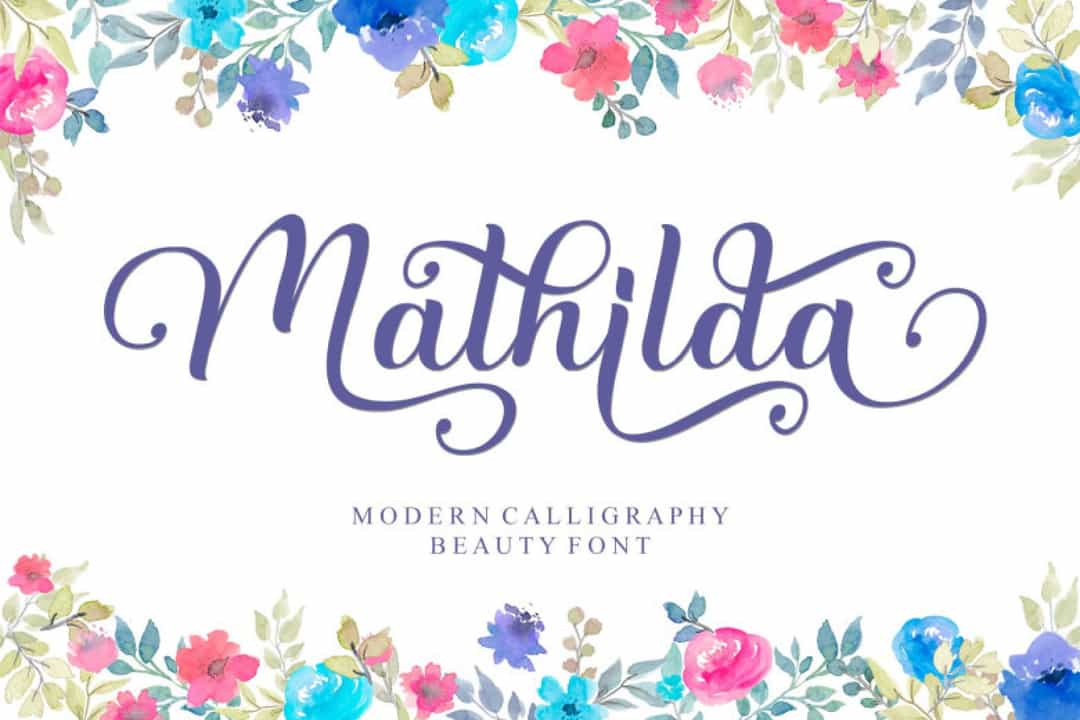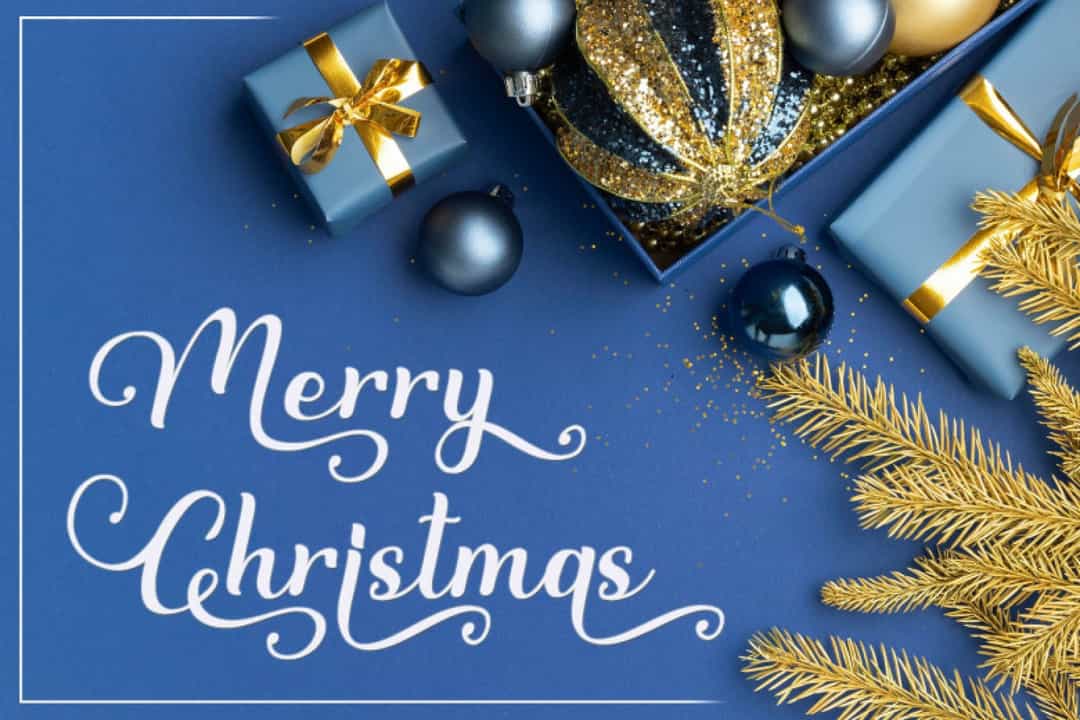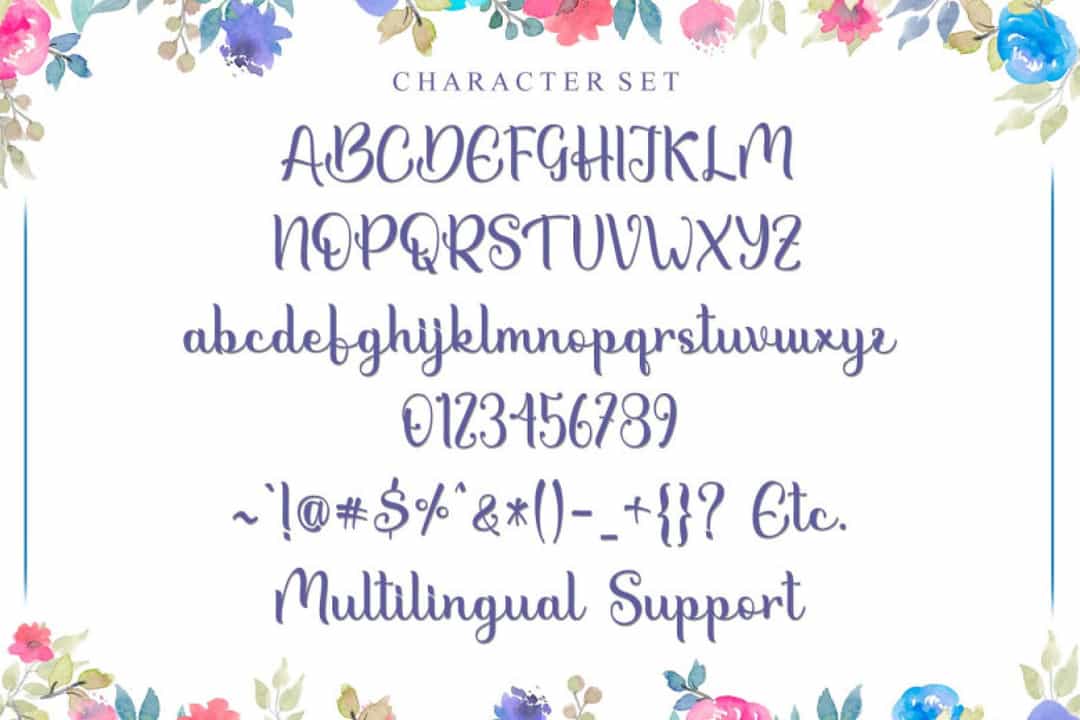
Letterafa Studio created Mathilda Font, a contemporary calligraphy script font. This font adds an original and sweet character to your designs with its flowing script style and lovely characters. Mathilda font is perfect for greeting cards, logos and brand identity projects like packaging designs or brand identity packages as well as crafting projects, DIY book titles or wedding invitations packaging designs among many other applications.